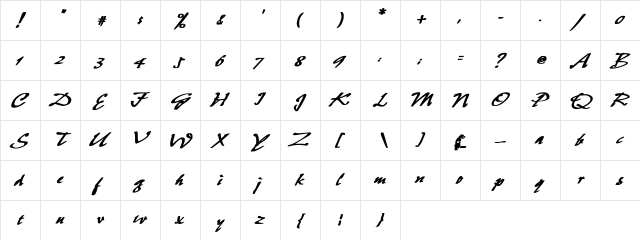
Pepita Bold Italic Bold Italic
Design Context for Pepita Bold Italic Typeface
Pepita Bold Italic is a composed and adaptable typeface that performs quietly and consistently across a wide range of design contexts. The slanted form adds forward momentum and visual energy. Its bold stroke weight gives it real presence on the page.